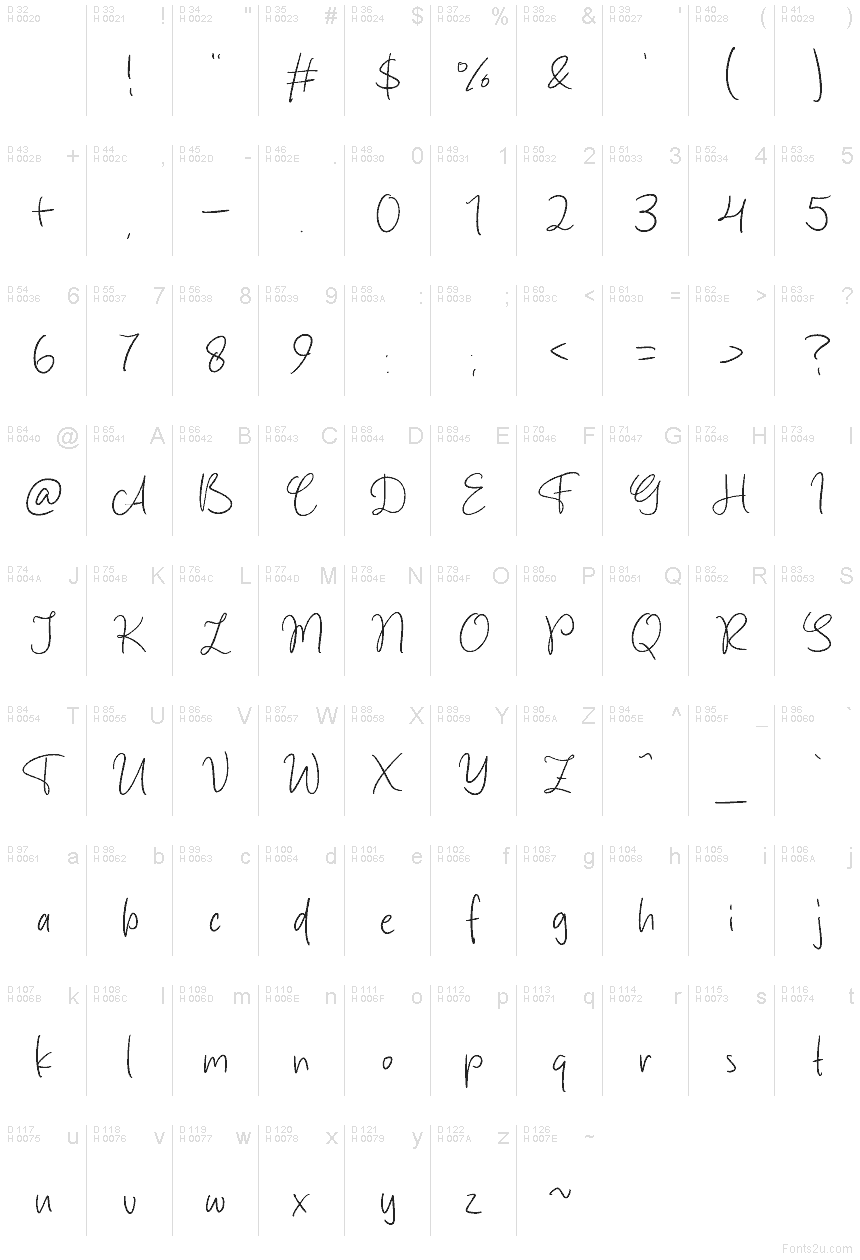
Peach Blue
Peach Blue font by MJType is a free handwritten font that captures the loose, breezy feel of real ink on paper without sacrificing clarity. Its tall, slightly quirky letters have an easy, off-the-cuff rhythm—like notes in a journal—while the consistent line weight keeps everything tidy and readable. The result feels warm and personal, but not messy, giving you that “handwritten by a steady hand” look in seconds.
Using Peach Blue, you can add a soft, intimate touch to Instagram quotes, wedding stationery, casual logos, product packaging, planner pages, or greeting cards. This free font shines when used a bit larger, where its slender strokes and airy spacing can breathe. Pair Peach Blue with a clean geometric sans typeface in smaller text to keep your layouts balanced and modern while letting the handwriting carry the emotion.